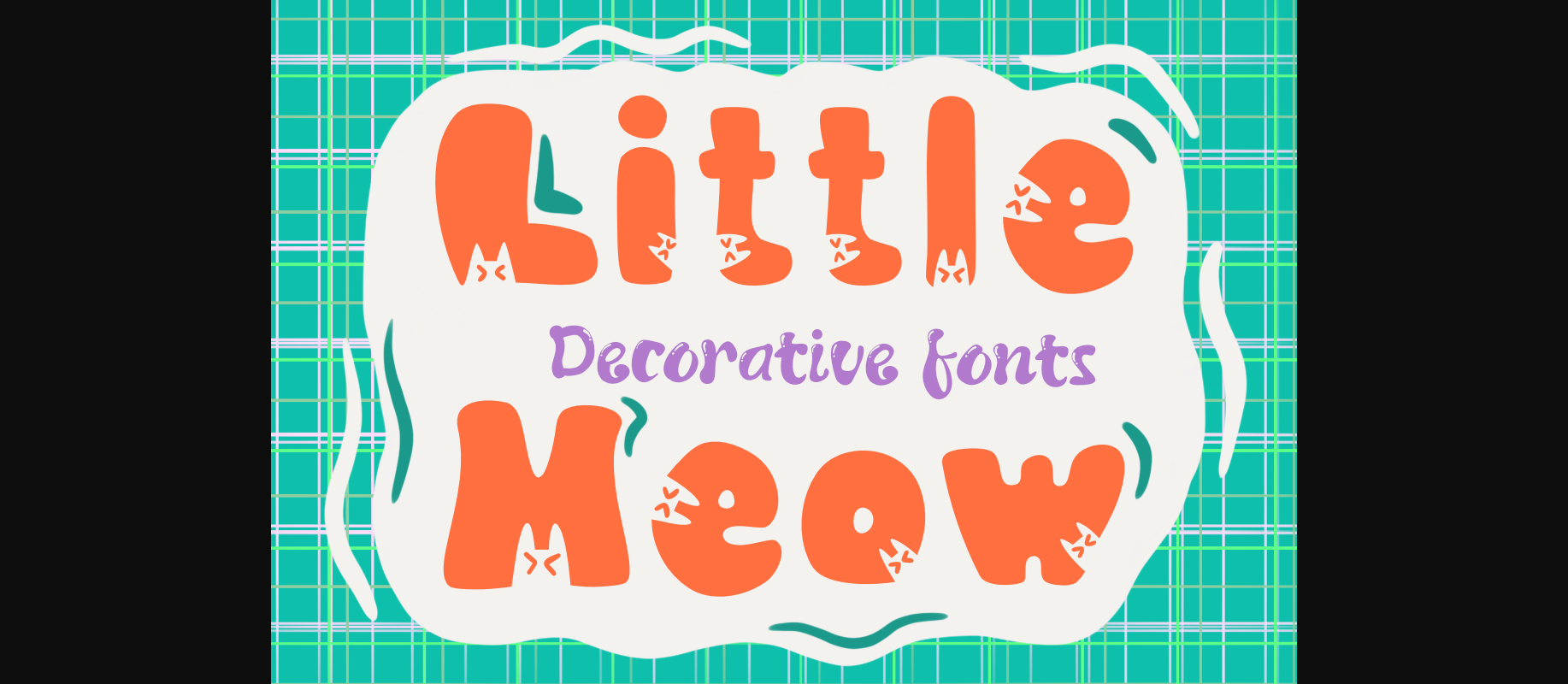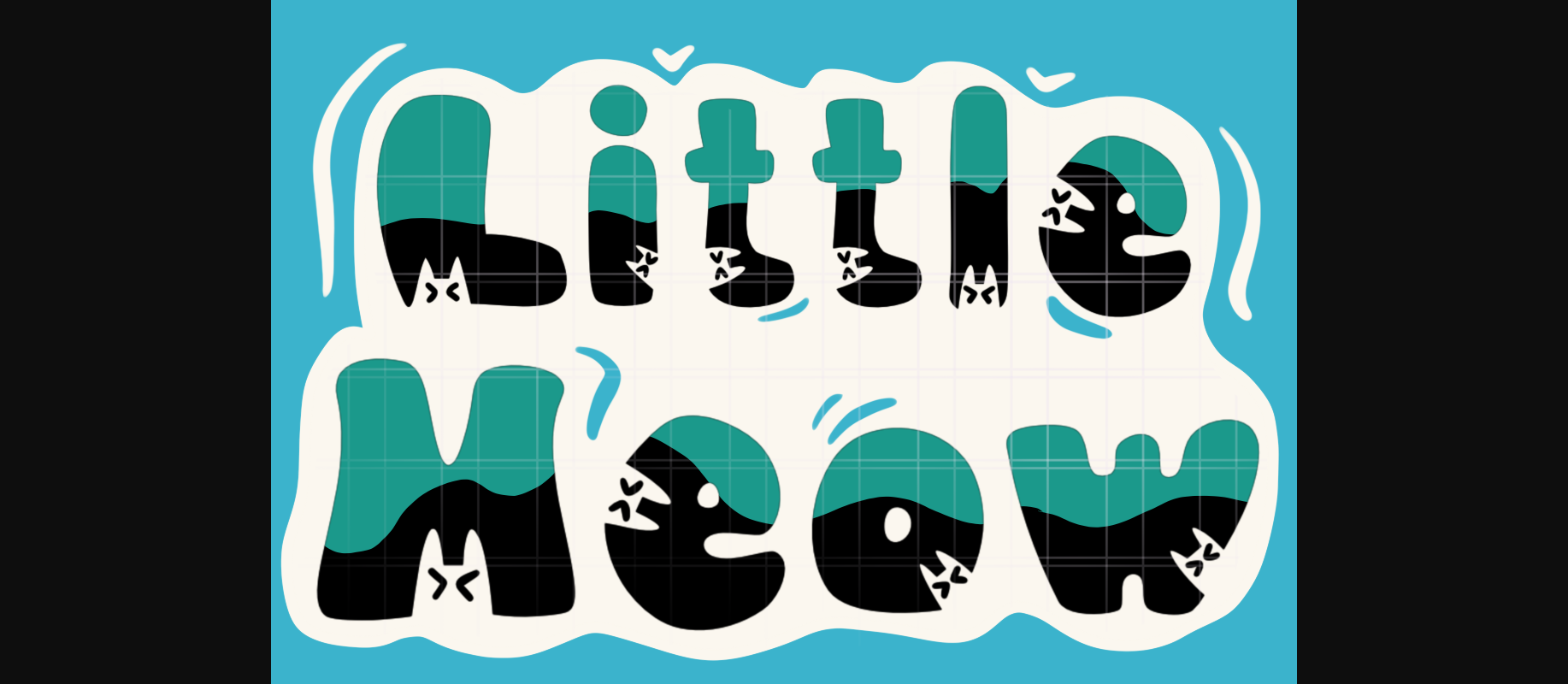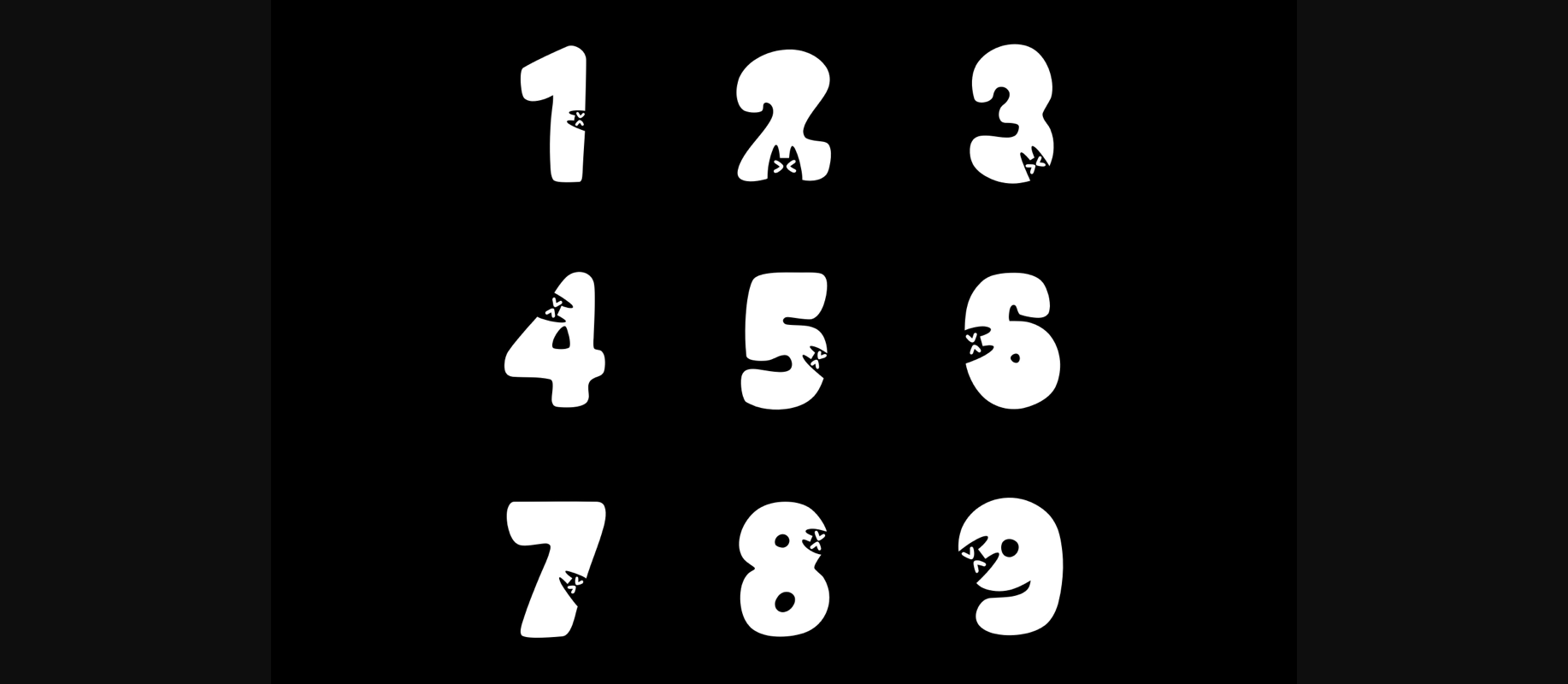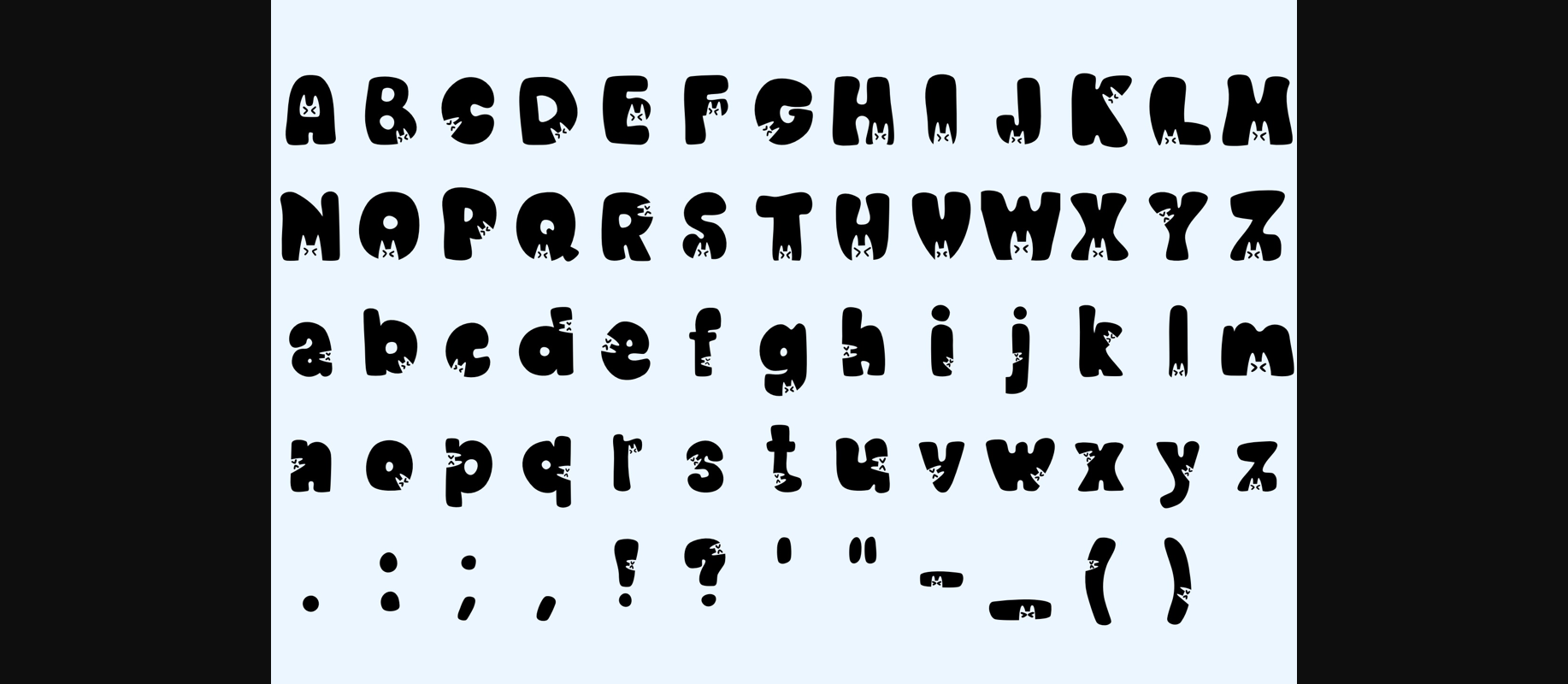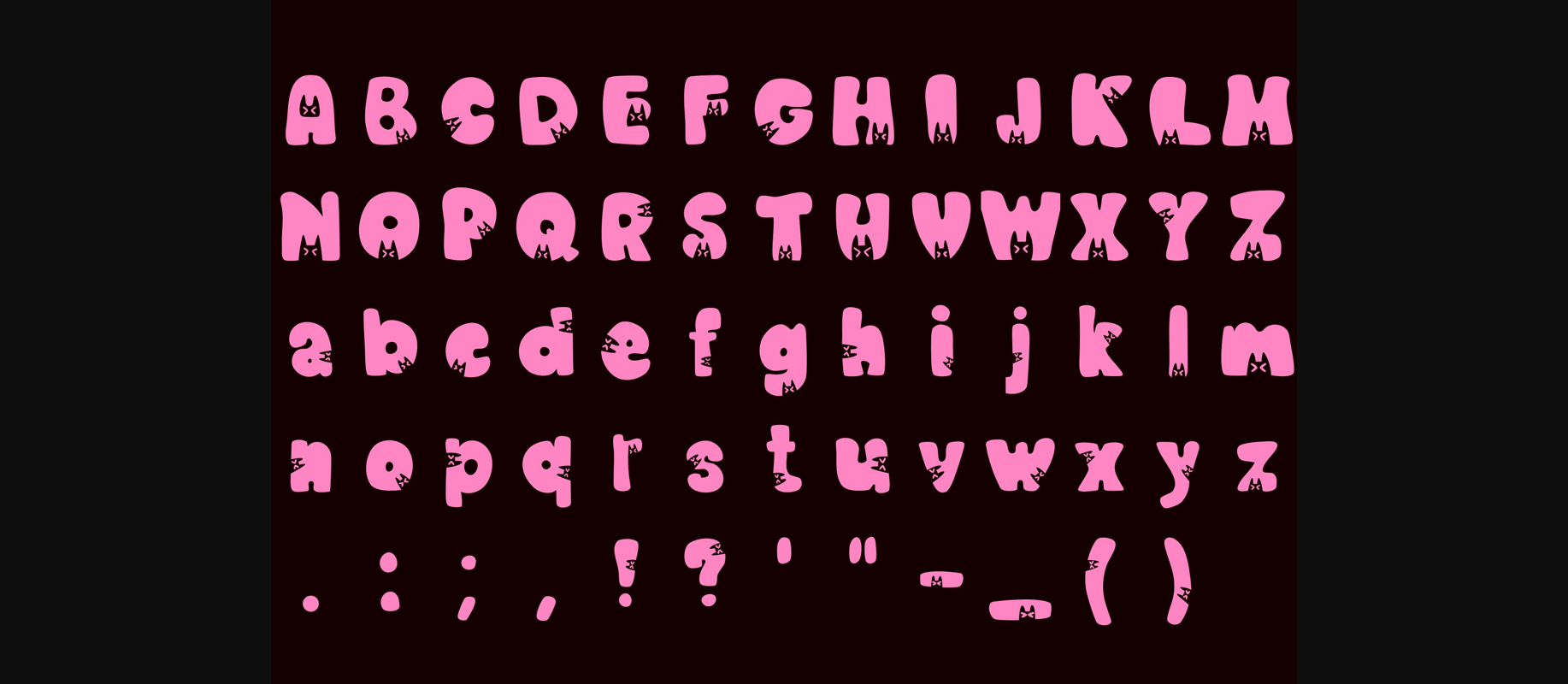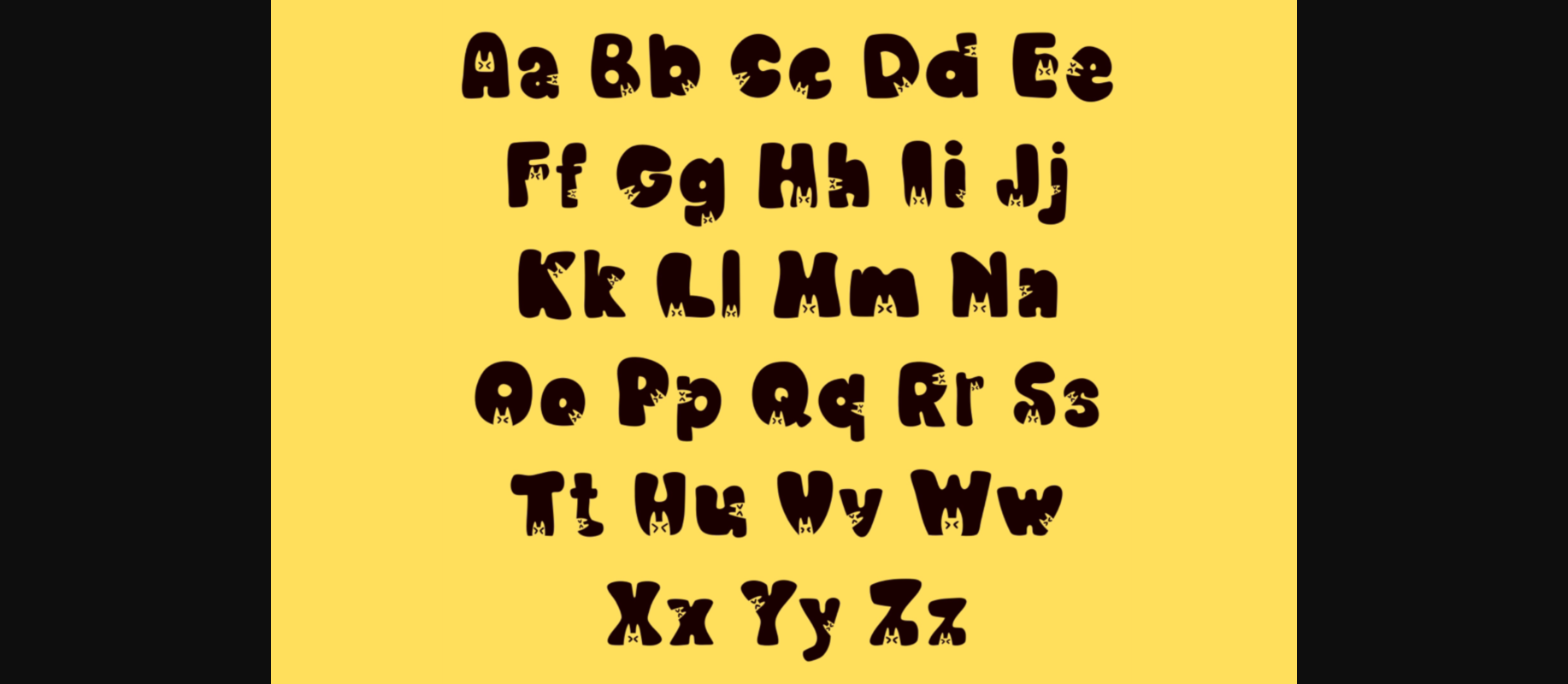
HomeDecorative FontsLittle Meow Font Decorative Fonts Little Meow Font FacebookXPinterestWhatsApp 1 of 8 ... Little Meow Font Poster 2... Little Meow Font Poster 3... Little Meow Font Poster 4... Little Meow Font Poster 5... Little Meow Font Poster 6... Little Meow Font Poster 7... Little Meow Font Poster 8... About Little Meow Font “Little Meow,” the delightful Decorative font that brings adorable charm to your designs. Perfect for cat lovers and creatives seeking playfulness. Available in .otf and .ttf formats. Unleash your creativity with feline fun! DOWNLOAD NOW People also explored Girly Signature Font Delphine Font Biosha Font Squashy Font Matilda Kimberly Font Special Ramen Font Belluccis Font Made Florn Font Candy Ballon Font 255 0 TagsLittle Meow Font Previous articleStar FontNext articleTommy Font LEAVE A REPLY Cancel reply Comment: Please enter your comment! Name:* Please enter your name here Email:* You have entered an incorrect email address! Please enter your email address here Website: Save my name, email, and website in this browser for the next time I comment. Personal Use Free Huntry Personal Use Free Read more about this font Hashira Mt Personal Use Free Read more about this font Omellia Personal Use Free Read more about this font Tomatoes Personal Use Free Read more about this font BLOG Using Fonts in Digital Marketing: Tips to Strengthen Your Brand Identity In the realm of digital marketing, every visual element plays a crucial role in shaping a brand's identity, and fonts are no exception. The... Elegant Wedding Invitation Fonts – Handwritten & Script Fonts To increase your work productivity, choose the most readable fonts. Free vs Paid Fonts: Why Investing in Premium Fonts Is Worth It